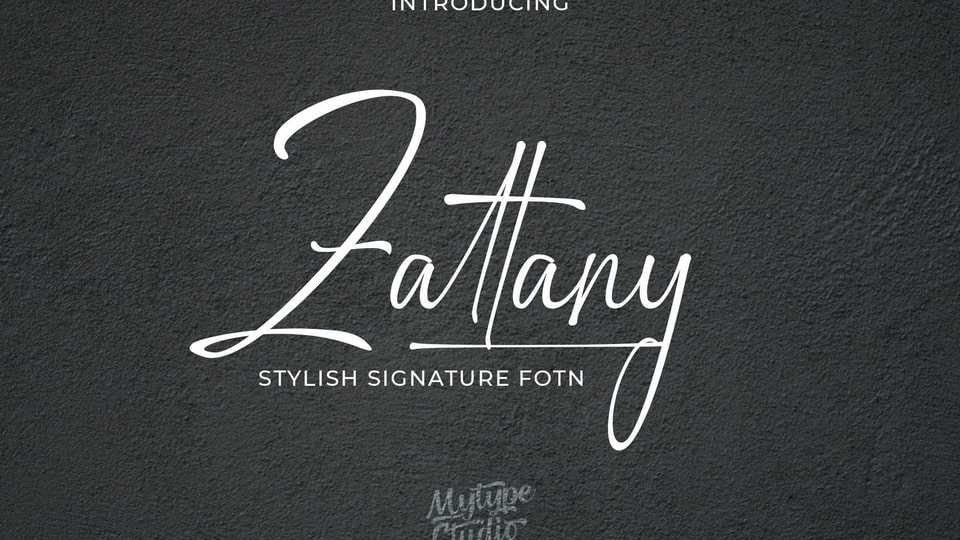
Download Zattany font, a stylish signature typeface with contemporary and sophisticated accents. It is perfect for logo, branding projects, large header text and product packaging.
Designer: Mytype Studio